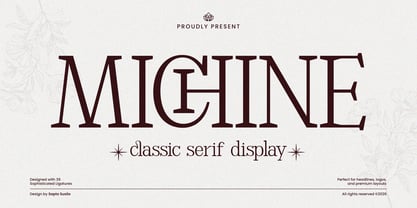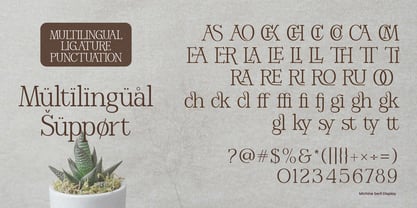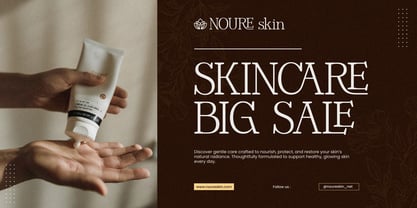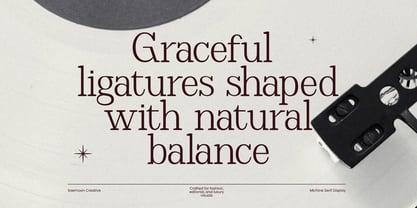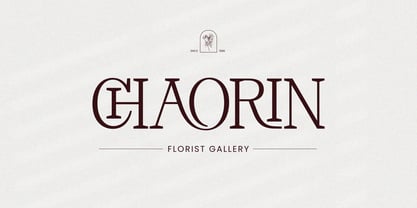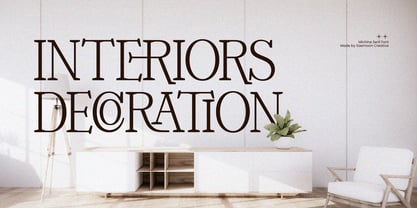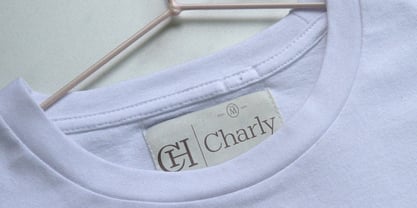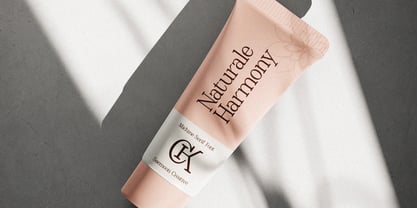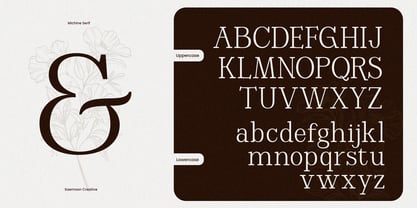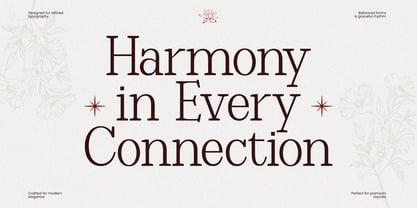
Michine
Die Schriftfamilie Michine wurde von Sapto Susilo entworfen und von Saemoon Creative veröffentlicht. Michine enthält 2 Stile und Familienpaketoptionen.
MICHINE is a classic serif display typeface with a refined and elegant character. Designed with balanced proportions and graceful details, it brings a timeless aesthetic with a modern touch. Featuring sophisticated ligatures and smooth letter connections, MICHINE creates a harmonious and distinctive visual flow. This typeface is ideal for high-end design projects that require elegance and clarity. Perfect for logos, branding, headlines, editorial layouts, packaging, and luxury-focused designs. Features Classic serif display style Elegant and balanced letterforms 39 sophisticated ligatures Uppercase & lowercase Numerals & punctuation Multilingual support